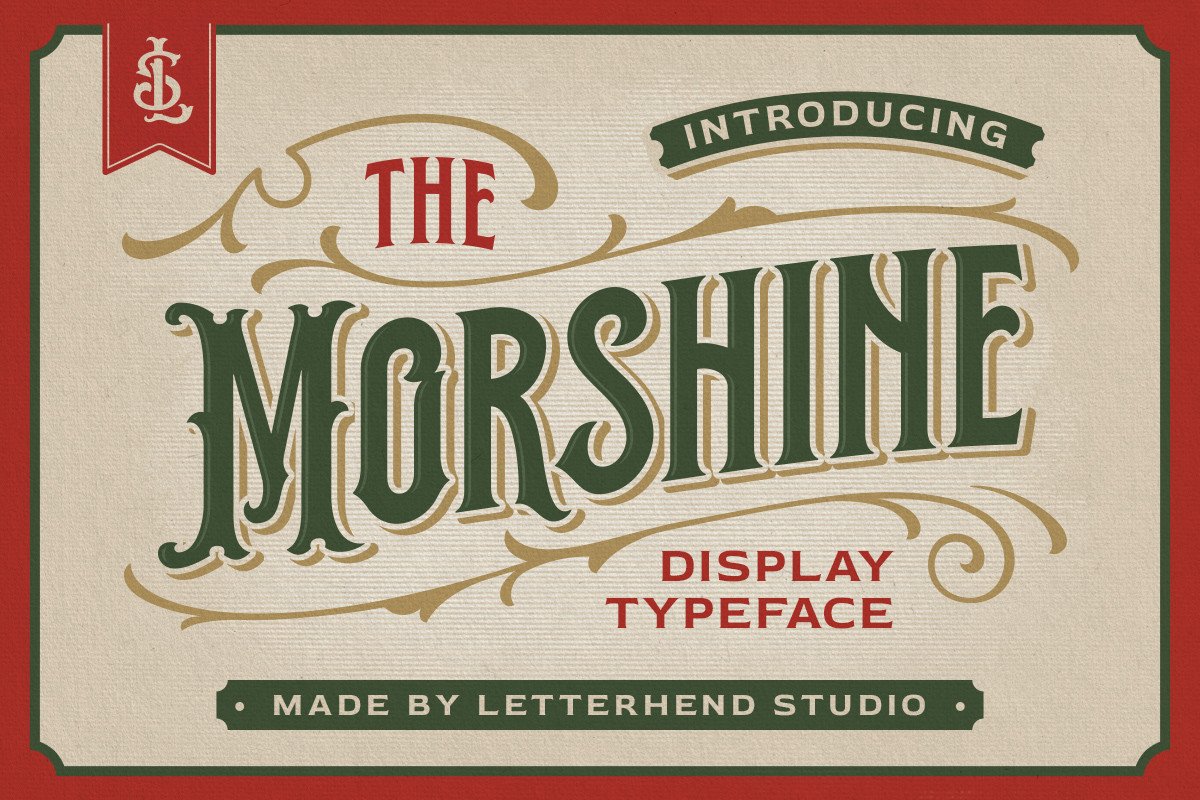
The Morshine Font
This luminous and radiant typeface is perfect for sunrise café branding, morning radio show logos, dawn yoga studio signage, early morning fitness programs, breakfast restaurant menus, morning news publications, sunrise photography studios, dawn meditation centers, and daybreak wellness services that require a bright, energizing aesthetic.
The Morshine Font brings excitement to design projects with its brilliant, illuminating character and radiant energy that captures the essence of morning sunshine and fresh beginnings. The font features bright, optimistic letterforms with glowing qualities that evoke feelings of hope, renewal, and positive energy. Its luminous sophistication and uplifting presence make it an exceptional choice for brands that want to communicate fresh starts, morning vitality, and inspiring optimism in their energizing communications.
The Morshine Font family includes various radiant styles: Light, Regular, Medium, Bold, Glow, Condensed, and Sunrise versions. Each variant maintains the font's distinctive brilliant character while providing designers with complete flexibility for creating luminous morning branding systems. The family also features sun-inspired ornaments, ray-like decorative elements, dawn-themed ligatures, and radiant symbols that enhance the overall enlightening aesthetic.
When searching for bright morning typography solutions, The Morshine Font Free Download offers an unmatched combination of brilliance and warmth that perfectly embodies the spirit of dawn and morning energy. Professional designers love this font for its ability to create instant positivity while maintaining excellent readability across various morning-themed contexts. The typeface works beautifully from intimate morning greeting cards to large-scale sunrise event signage, preserving its radiant charm at every inspiring application.
The font's luminous excellence includes carefully crafted bright character spacing that promotes visual energy, uplifting proportions that create emotional warmth, and glowing variations that maintain morning freshness while ensuring professional credibility. Whether you're designing for wellness centers, morning entertainment, or sunrise hospitality venues, this font delivers the radiant touch that energizes audiences seeking fresh starts and positive morning experiences.
For creative professionals working with morning and wellness markets, this font represents an invaluable resource for creating uplifting dawn communications. Its versatile nature allows it to adapt to both energetic fitness brands and peaceful meditation services while maintaining its distinctive bright character. Download this exceptional typeface today and experience how radiant typography can transform your projects into inspiring brand experiences that celebrate the golden beauty of morning sunshine and illuminate paths toward positive new beginnings.